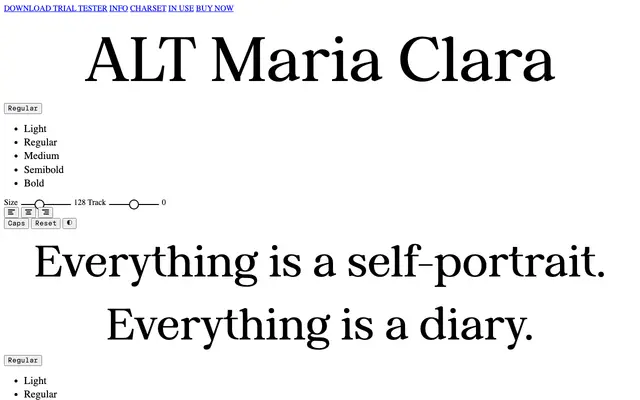
ALT Maria Clara
A sharp, high-contrast display serif by Alli Cunanan, designed as an act of cultural reclamation rooted in Philippine visual history.
Designed by Alli Cunanan and named after the colonial Filipina archetype Maria Clara, the typeface inverts its source symbol by channelling confidence and intricacy rather than submissive restraint. Five weights from Light to Bold carry 592 glyphs with stylistic alternates, oldstyle figures and ligatures across full Latin Extended-A coverage. The result is a striking display face suited to editorial, branding and identity work where visual weight and cultural specificity matter.
A refined display serif with sharp, intricate letterforms drawing on Philippine visual history; its high contrast and ornamental detailing position it firmly in the display category rather than text use.